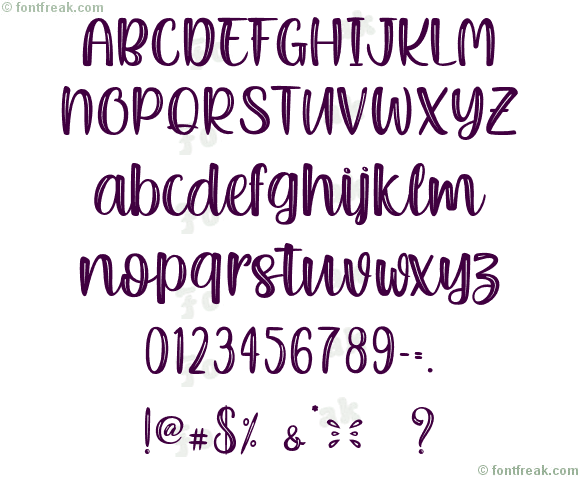
BlueEyesPersonalUse
About BlueEyesPersonalUse
BlueEyesPersonalUse is a captivating handwritten font designed by Suthi Srisopha, embodying a delightful blend of personality and elegance. This font falls into the script category, characterized by its fluid, cursive strokes that evoke a sense of warmth and approachability. The stroke weight varies gracefully, providing a balance between boldness and delicacy, while the moderate contrast enhances readability. The letters feature a playful, slightly irregular spacing that adds to its charm, making it an ideal choice for various creative applications.
The visual characteristics of BlueEyesPersonalUse include whimsical loops and swirls that embellish certain letters, giving the font a unique flair. Its decorative elements invite creativity, making it perfect for a range of specific use cases. It's particularly well-suited for wedding invitations, where the romantic feel can set the tone for the celebration. Additionally, it works wonderfully on greeting cards, offering a personal touch for heartfelt messages. Small business owners can utilize this font for branding, especially in sectors like artisanal food products or handmade crafts. Content creators will find it useful for social media graphics, where a handwritten style can engage audiences effectively.
Targeted towards graphic designers, small business owners, and content creators, BlueEyesPersonalUse provides a versatile tool for enhancing visual communication. The font’s charm lies in its ability to convey emotion and personality, making any text feel more intimate and inviting.